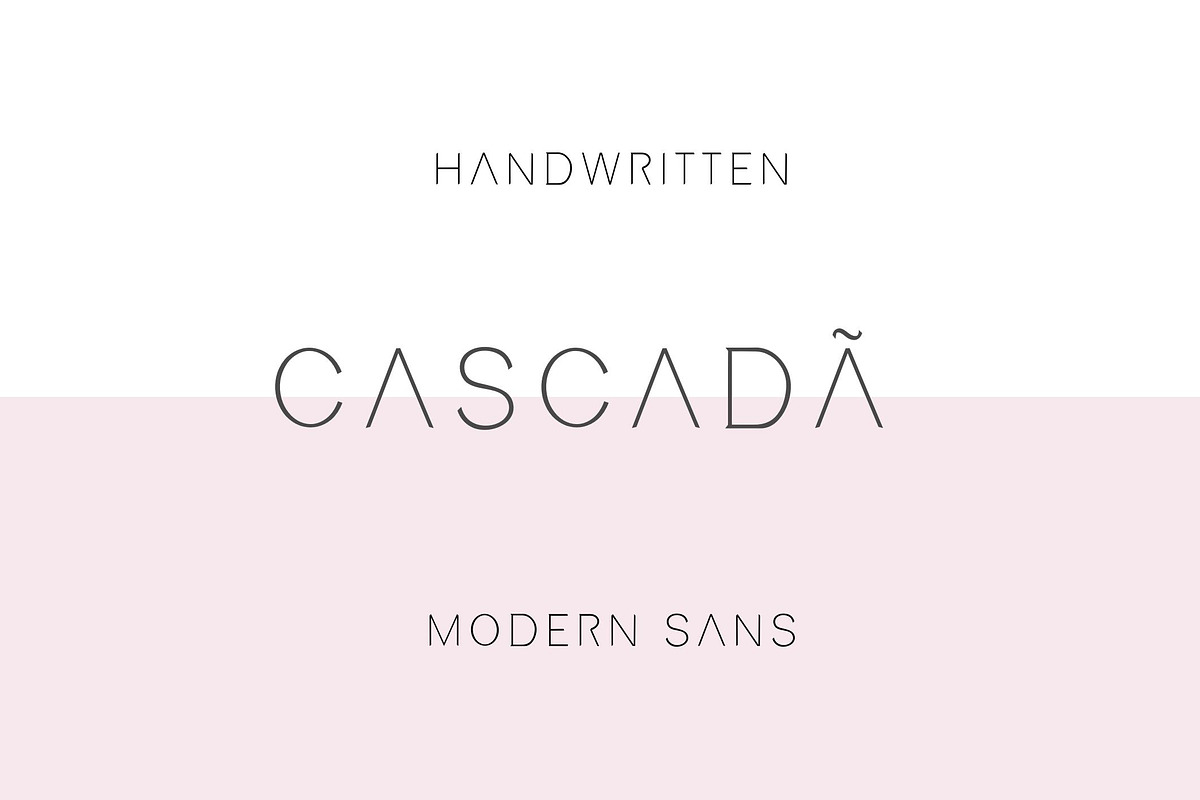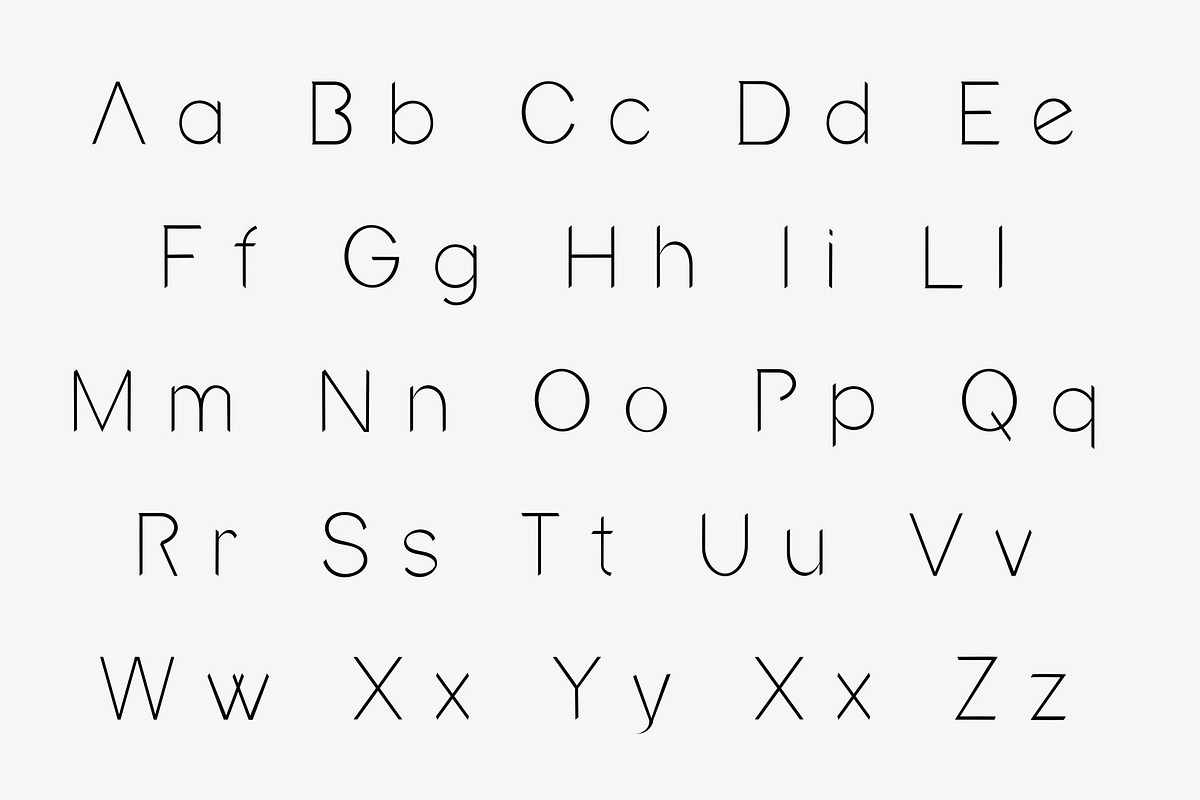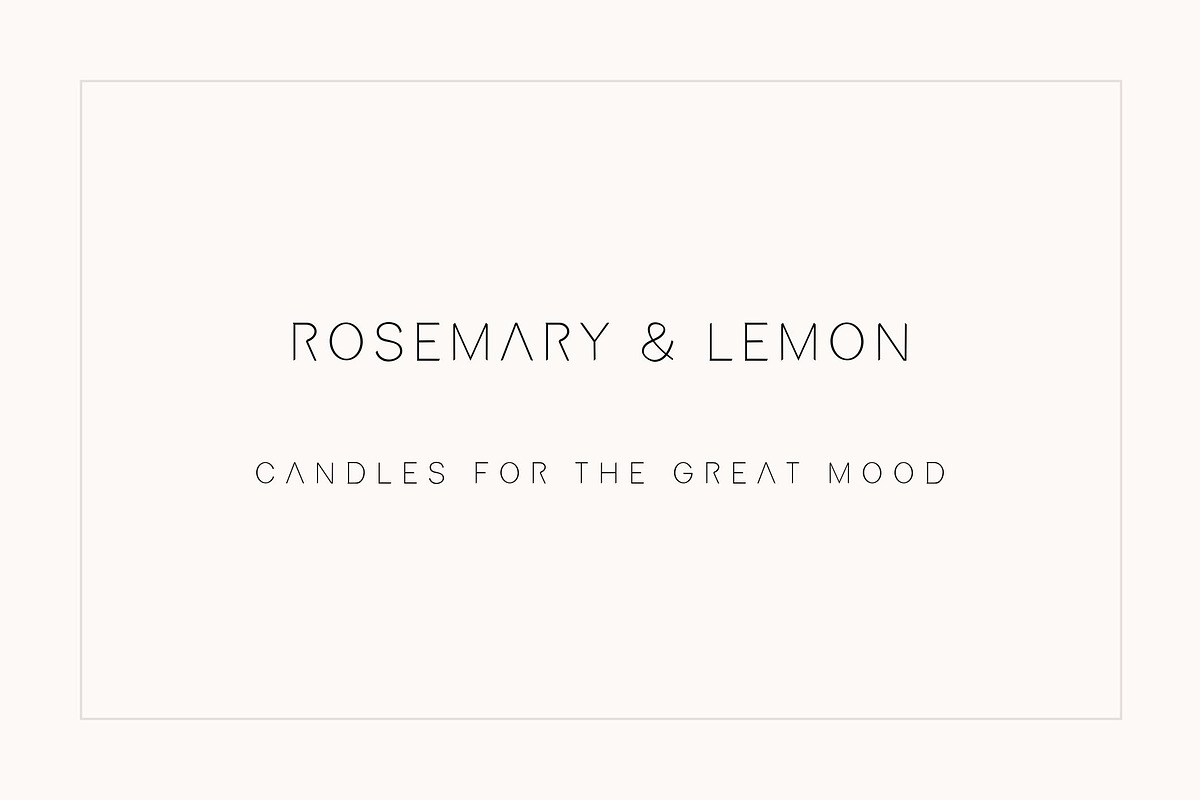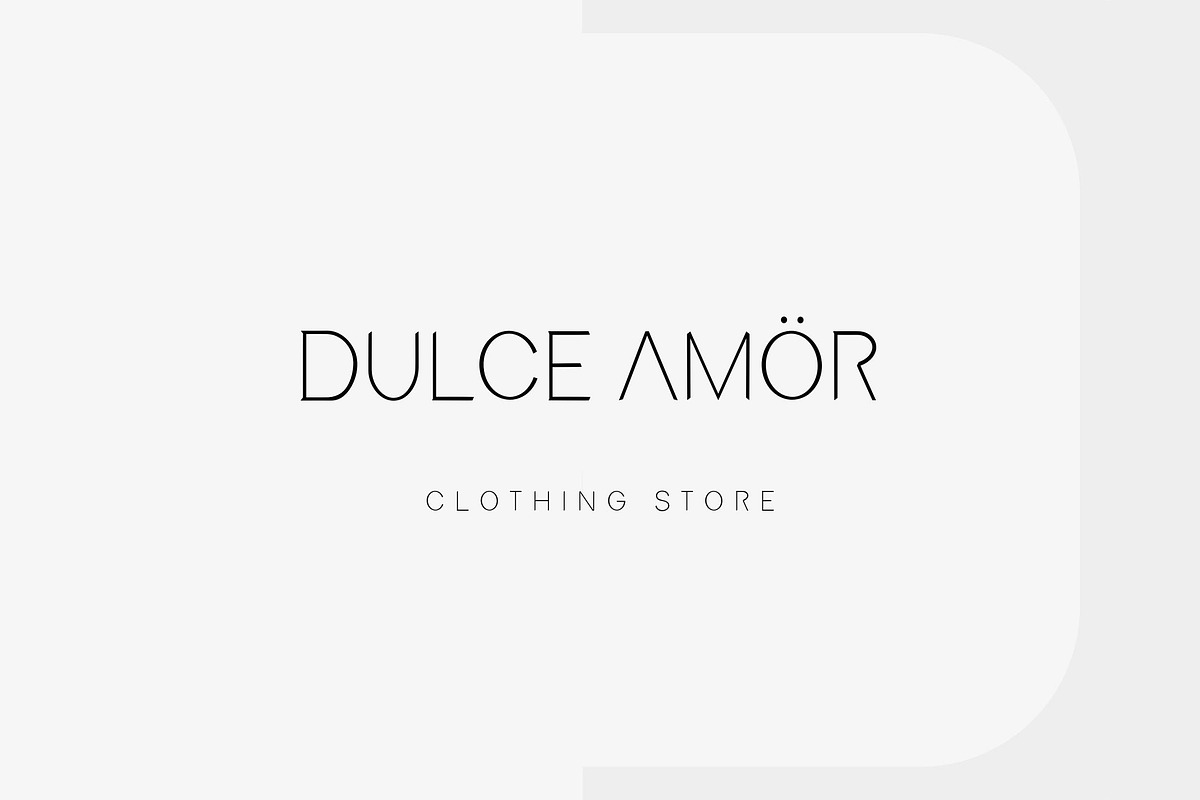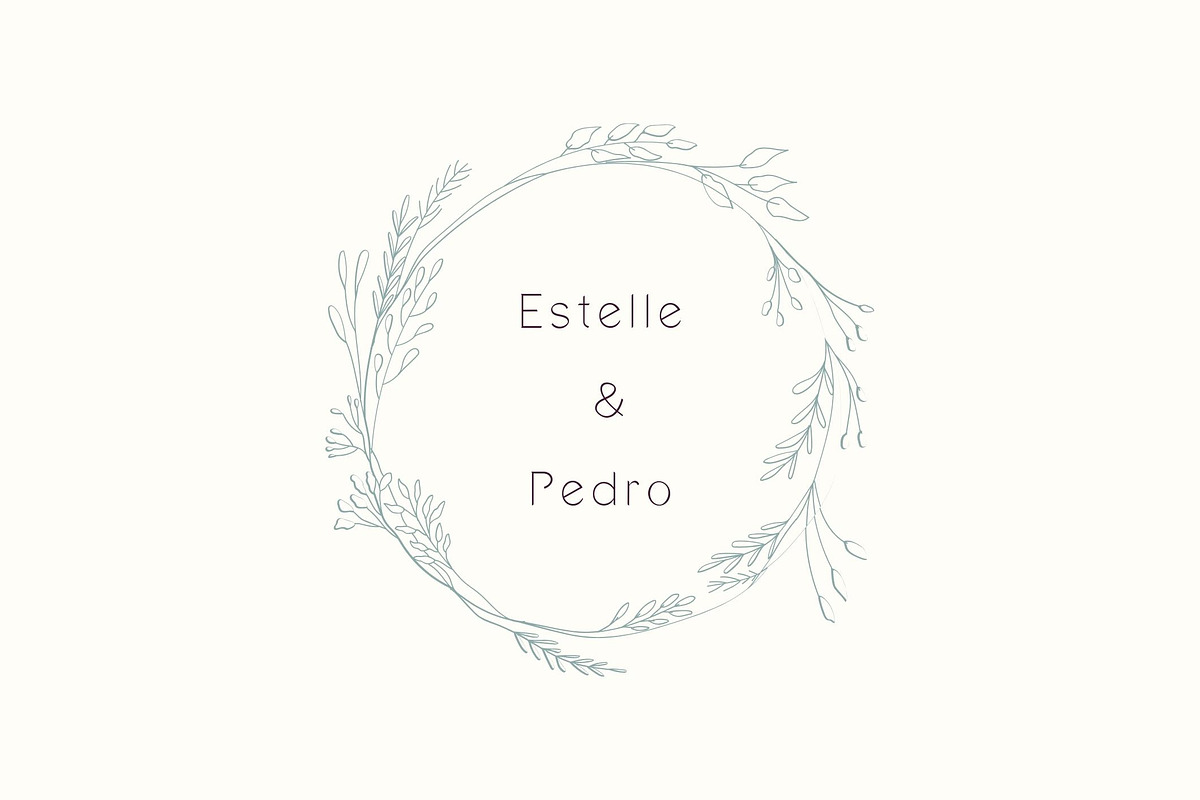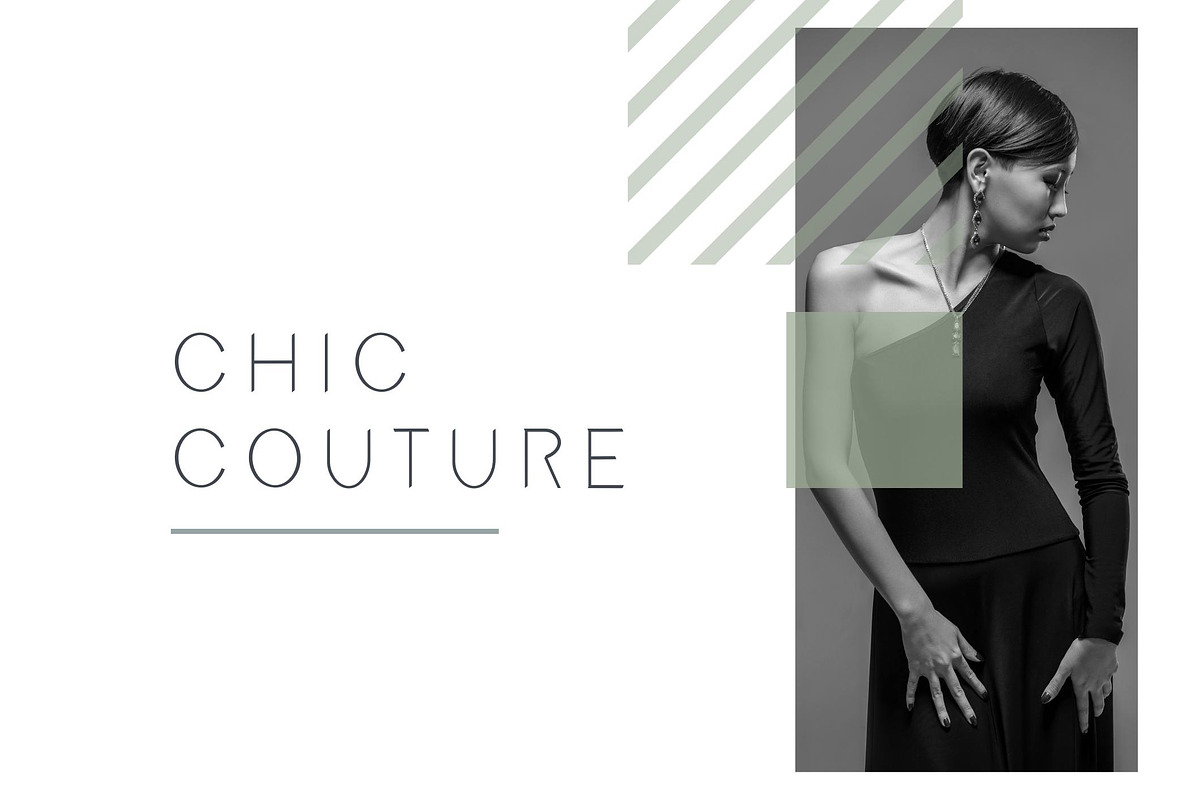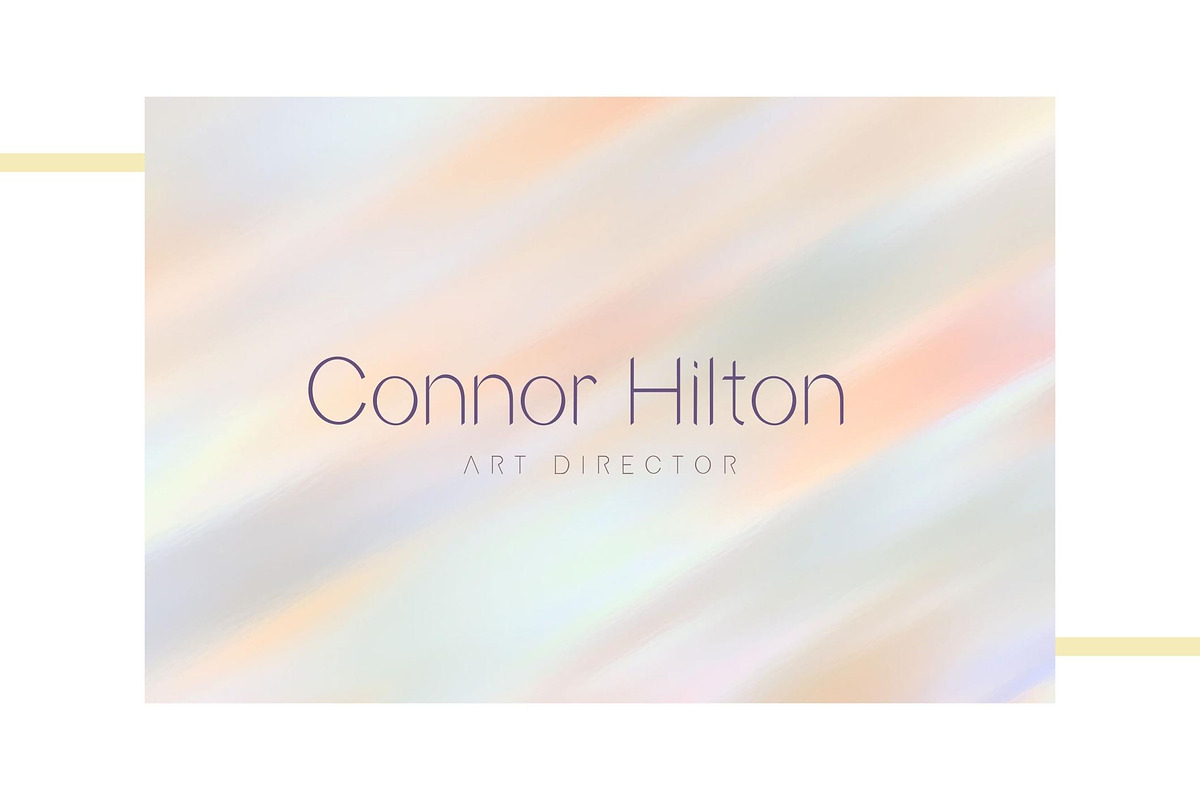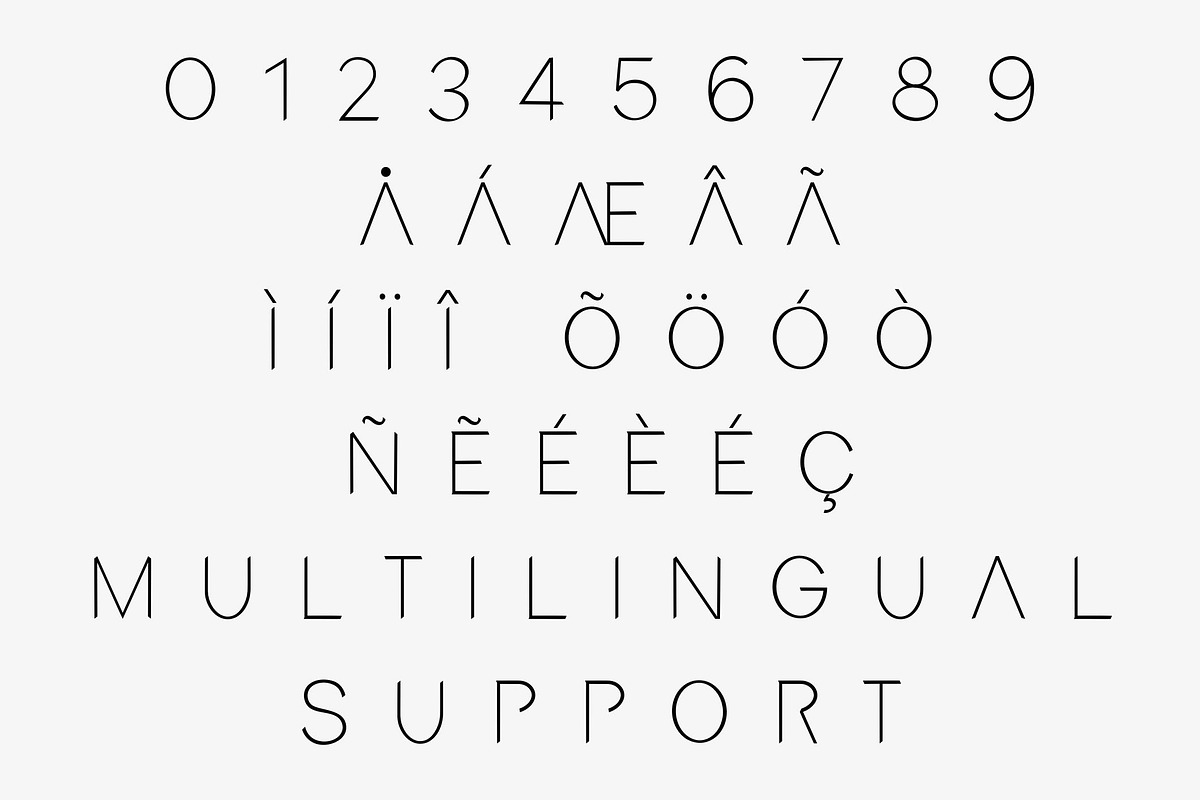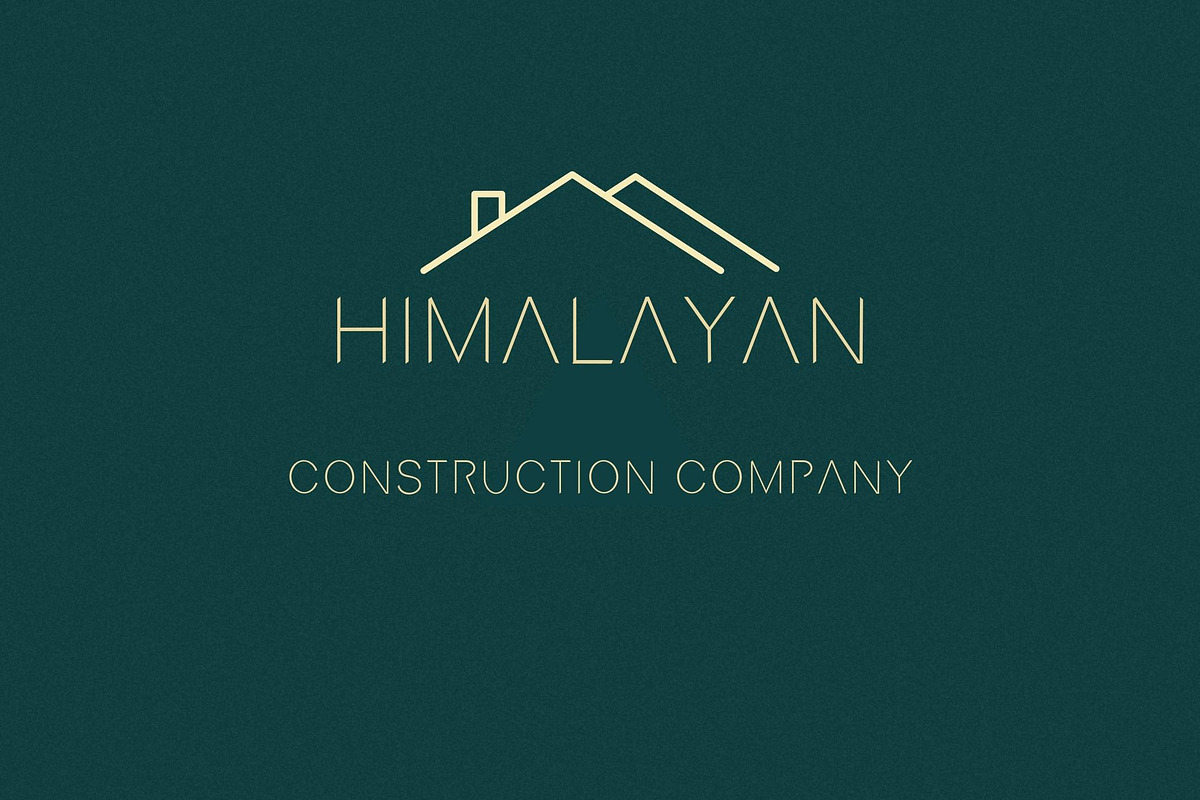
Cascada - modern sans serif font
Cascada is a modern Handwritten sans serif font.
This font is perfect for advertising, headings, blogs, logos, branding and more!
This font would pair well with a script style & also it’s speak loud it’s own.
Whether you're a graphic designer, web developer, or a DIY enthusiast, this font will elevate your projects with a contemporary touch.
Features: Uppercase, Lowercase, Numbers & punctuation & latin Multilingual support.